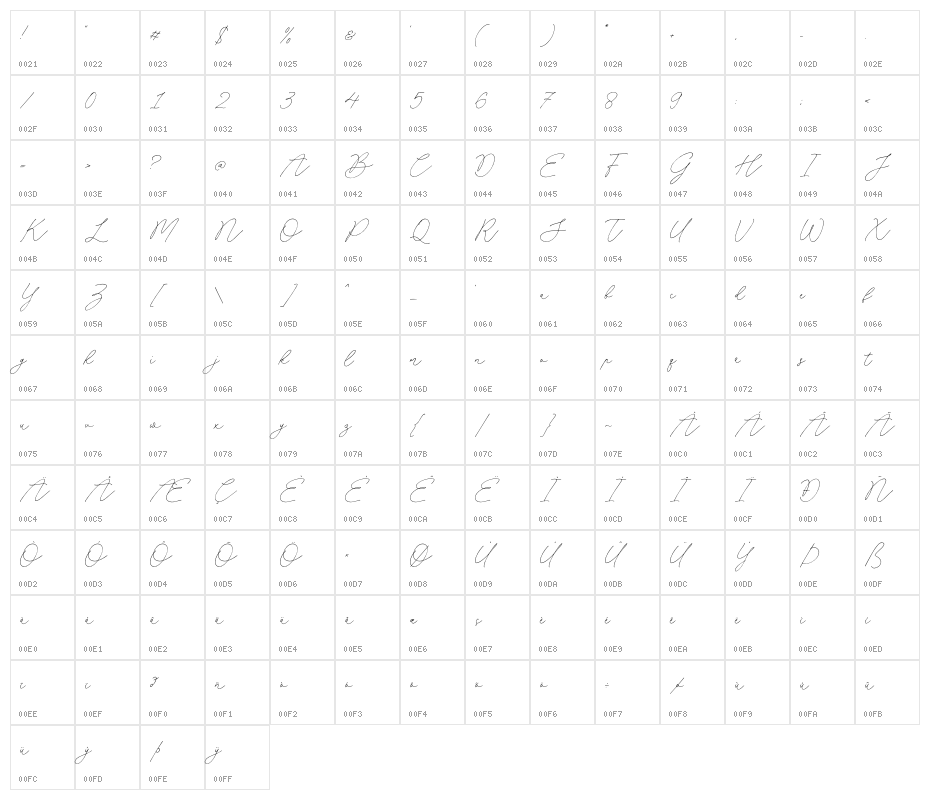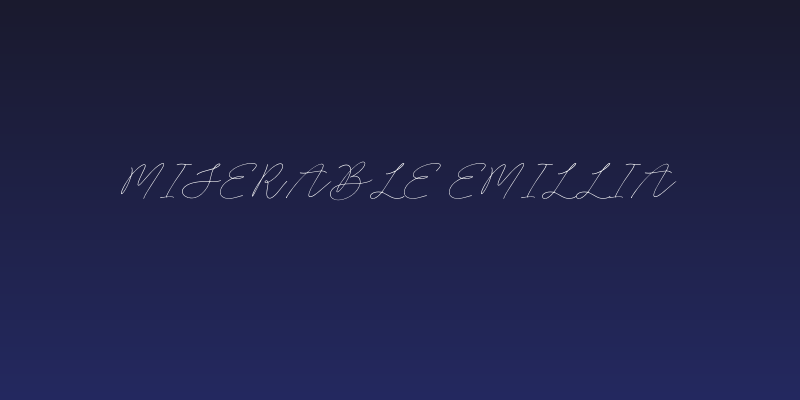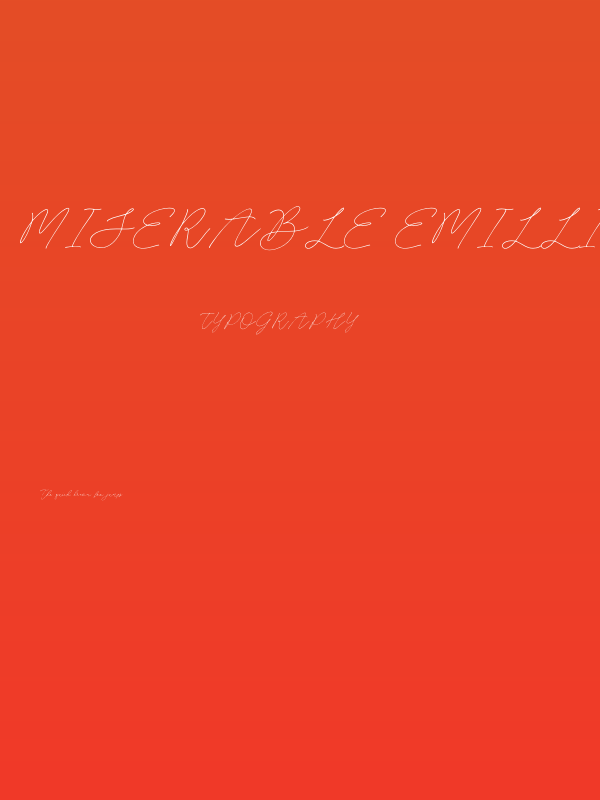
Miserable Emillia Font
Miserable Emillia Description
A delicate and flowing script font with a handwritten appearance, featuring elegant curves and a light stroke weight.
| Proposed Projects | Invitations, greeting cards, personal branding. |